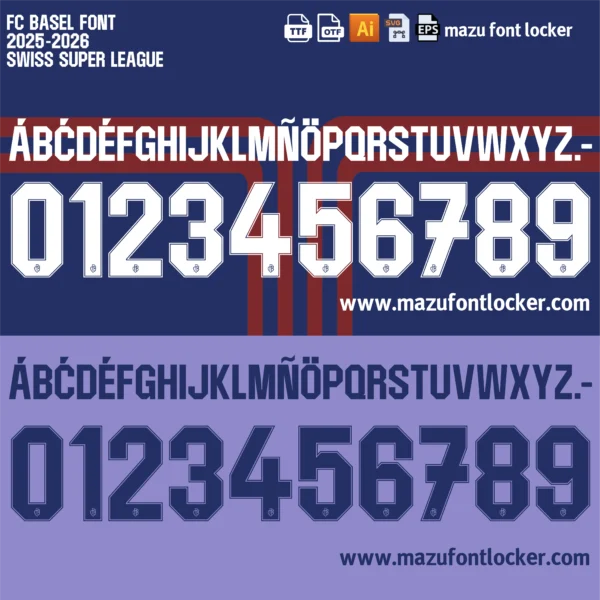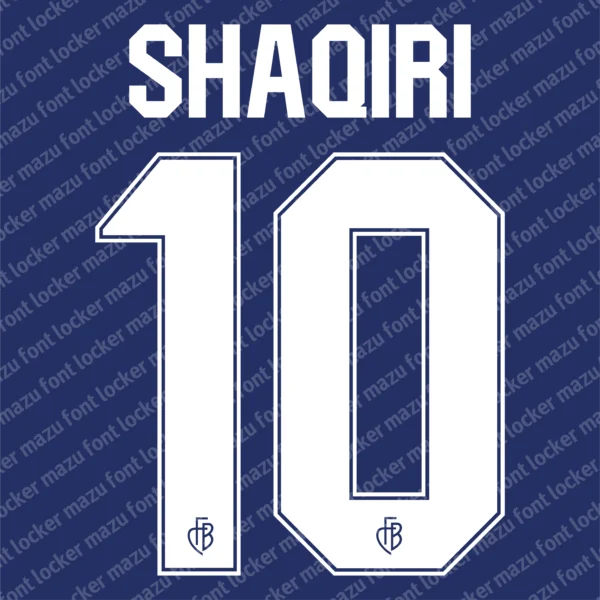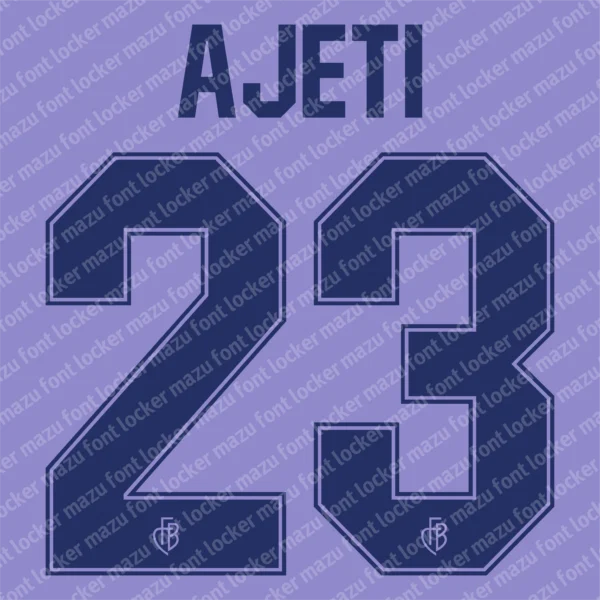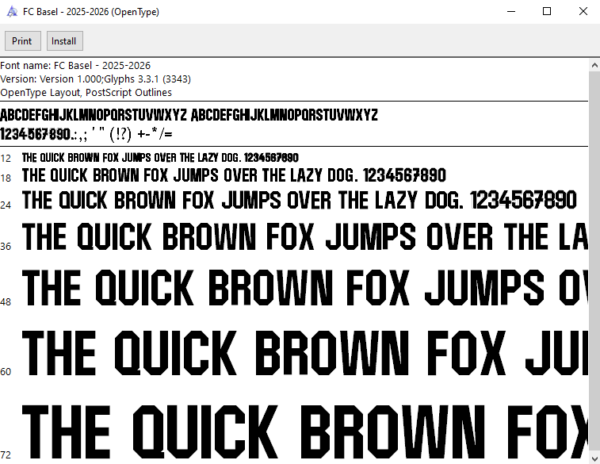
FC Basel 2025-2026 Font Vector – Elite Swiss Super League Jersey Style for Champions
Download the FC Basel 2025-2026 Font Vector (AI, EPS, SVG, OTF, TTF) and unleash the bold, powerful, and fiery match typography that thundered across the pitches during FC Basel’s explosive 2025-2026 season. This premium font captures the commanding, iconic lettering that embodies the fearless Rotblau spirit — delivering raw passion, relentless energy, Swiss precision, and legendary Basel intensity. Perfect for premium jersey mockups, football designs, dynamic sports visuals, fan creations, and epic stadium graphics that radiate pure FC Basel pride.
FC Basel 2025-2026 Font Vector – Authentic FCB Typeface
The FC Basel 2025-2026 Font Vector is a premium typeface that accurately recreates the official match lettering worn by FC Basel during the 2025-2026 Swiss Super League and European campaign. This high-quality vector font kit captures the bold, dynamic, and modern typography that represents one of Switzerland’s most successful and passionate football clubs.
Designed for professional designers and devoted FC Basel fans, the FC Basel 2025-2026 Font Vector delivers perfect authenticity for creating realistic jersey mockups, fan merchandise, matchday posters, social media graphics, and season celebration content. It pairs beautifully with the iconic red and blue home kit featuring the classic club crest.
Why Choose FC Basel 2025-2026 Font Vector
This font stands out because of its sharp vector details and strong club identity. Every letter and number is crafted to match the exact style used on the players’ shirts during the 2025-2026 season. Whether you are making realistic kit templates or passionate fan content, the FC Basel 2025-2026 Font Vector gives your designs that authentic FCB look.
The letterforms in the FC Basel 2025-2026 Font Vector are tall, bold, and highly readable. The strokes have a strong, clean weight with excellent edge definition that looks powerful on the back of jerseys while maintaining modern elegance and clarity.
- Full uppercase A–Z and numbers 0–9 in authentic FC Basel 2025-2026 style
- Special FC Basel crest glyph for accurate shirt number detailing
- Multilingual Latin character support including diacritics
- Create highly realistic FC Basel 2025-2026 home and away jersey mockups with accurate lettering
- Design stunning match posters, score graphics, and squad announcements
- Produce custom FC Basel merchandise with the 2025-2026 aesthetic
- Includes the exact crest glyph placement used under player numbers
FC Basel 2025-2026 Season
FC Basel enters the 2025-2026 season with renewed ambition, aiming to reclaim the Swiss Super League title and make a strong impact in European competitions. Supported by their world-famous passionate fans at St. Jakob-Park, the club continues its proud tradition of developing young talent and playing attractive, attacking football.
The FC Basel 2025-2026 Font Vector is an independently designed typeface package. It is carefully crafted to replicate the official shirt lettering style of the 2025-2026 season. This font kit is perfect for creative projects, fan edits, nostalgic jersey designs, and custom football graphics.